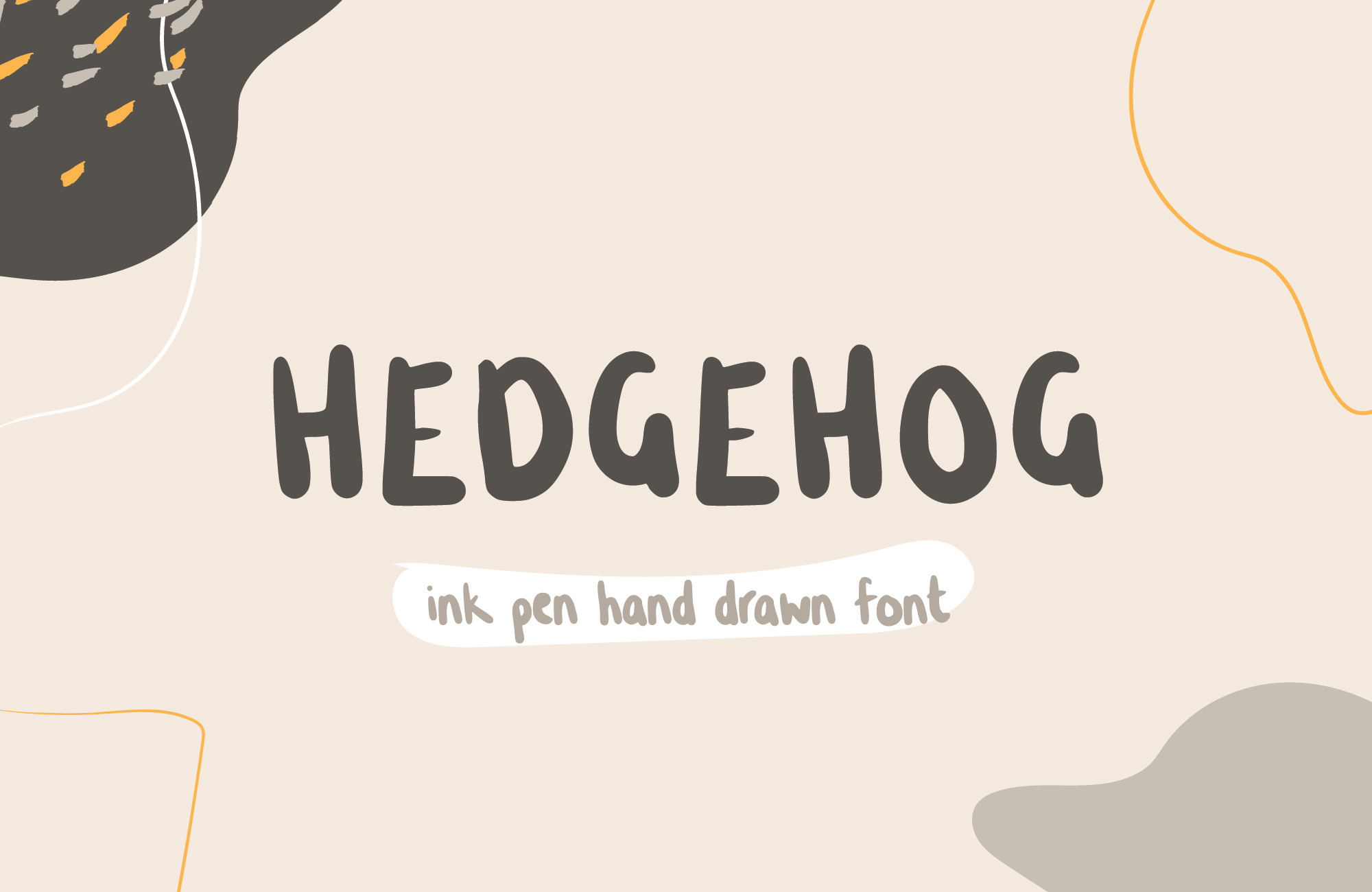
Hedgehog Hand Written Font
Hedgehog | A Charming Hand-Written Script Font
Hedgehog has been carefully crafted and hand-created to add originality to your designs. This is a hand drawn, hand-lettered, handwriting script font created by ethical brand studio 'Creative Wilderness'. Inspired by the quirky hedgehog personality this font will add playfulness, warmth, and delight to your designs.